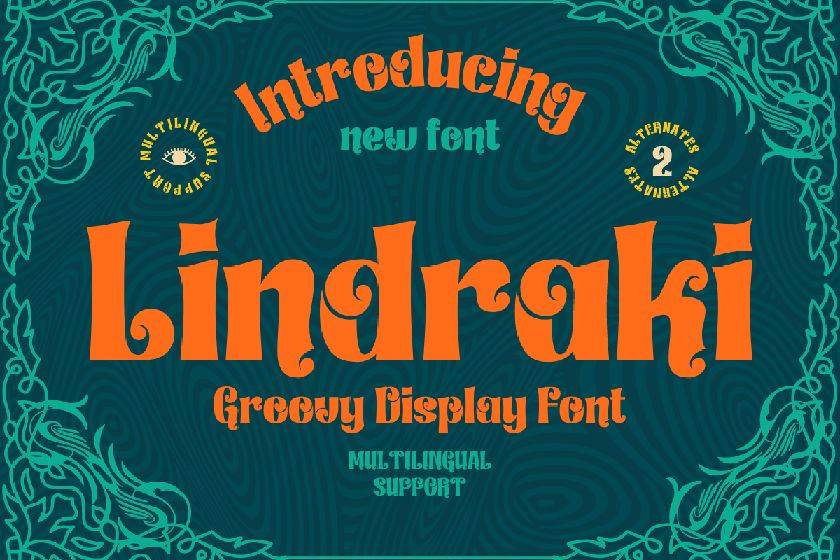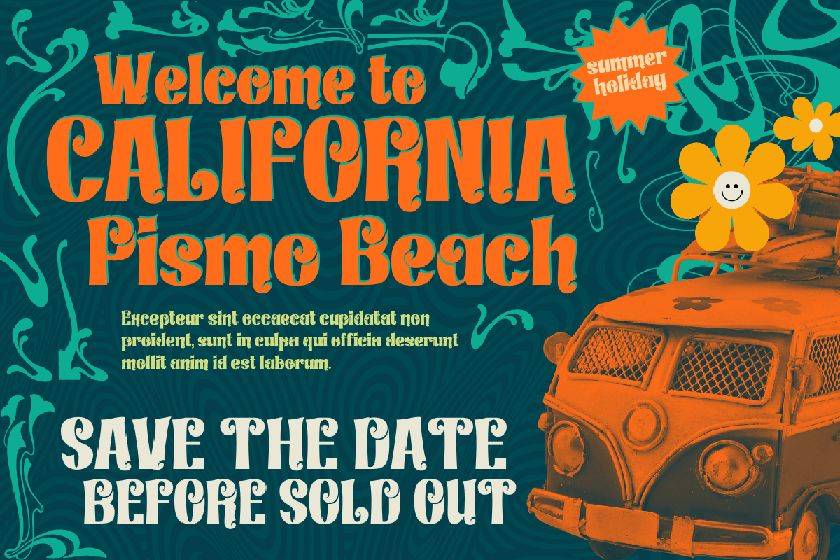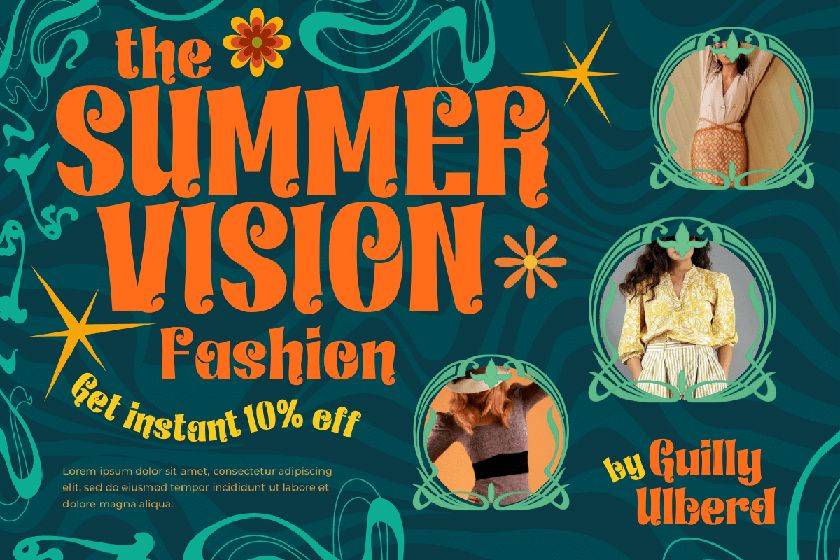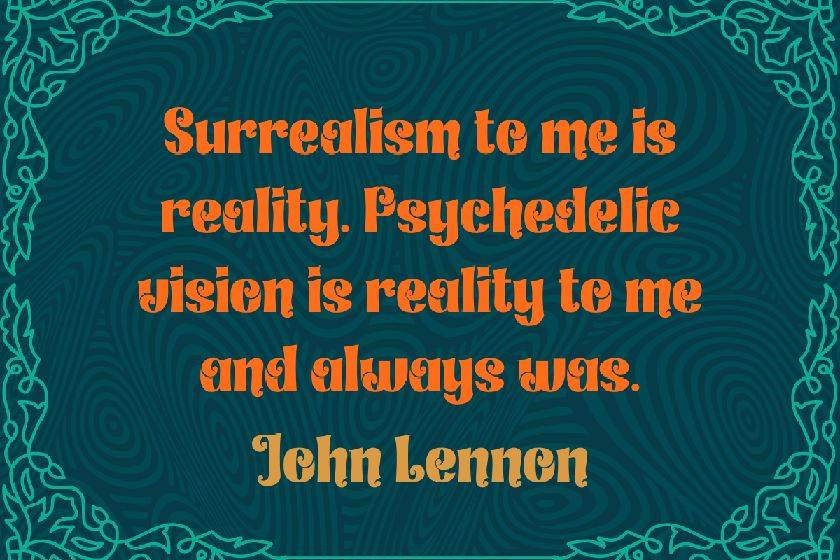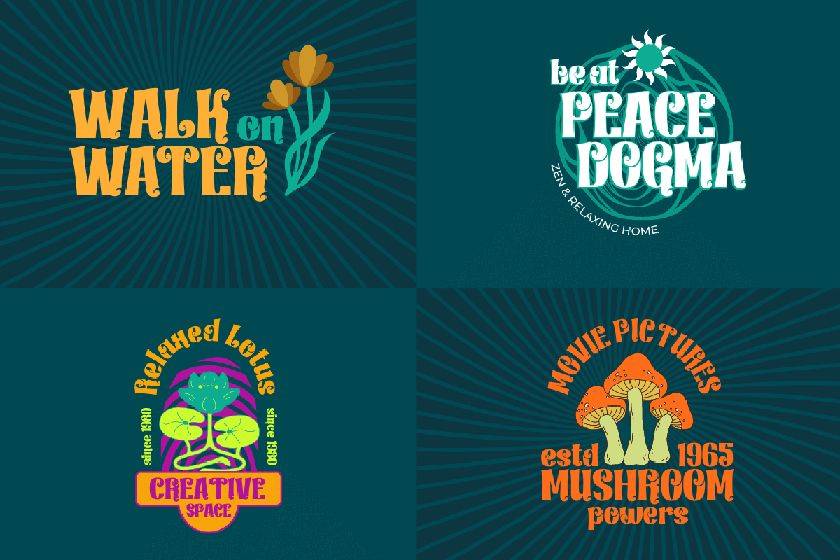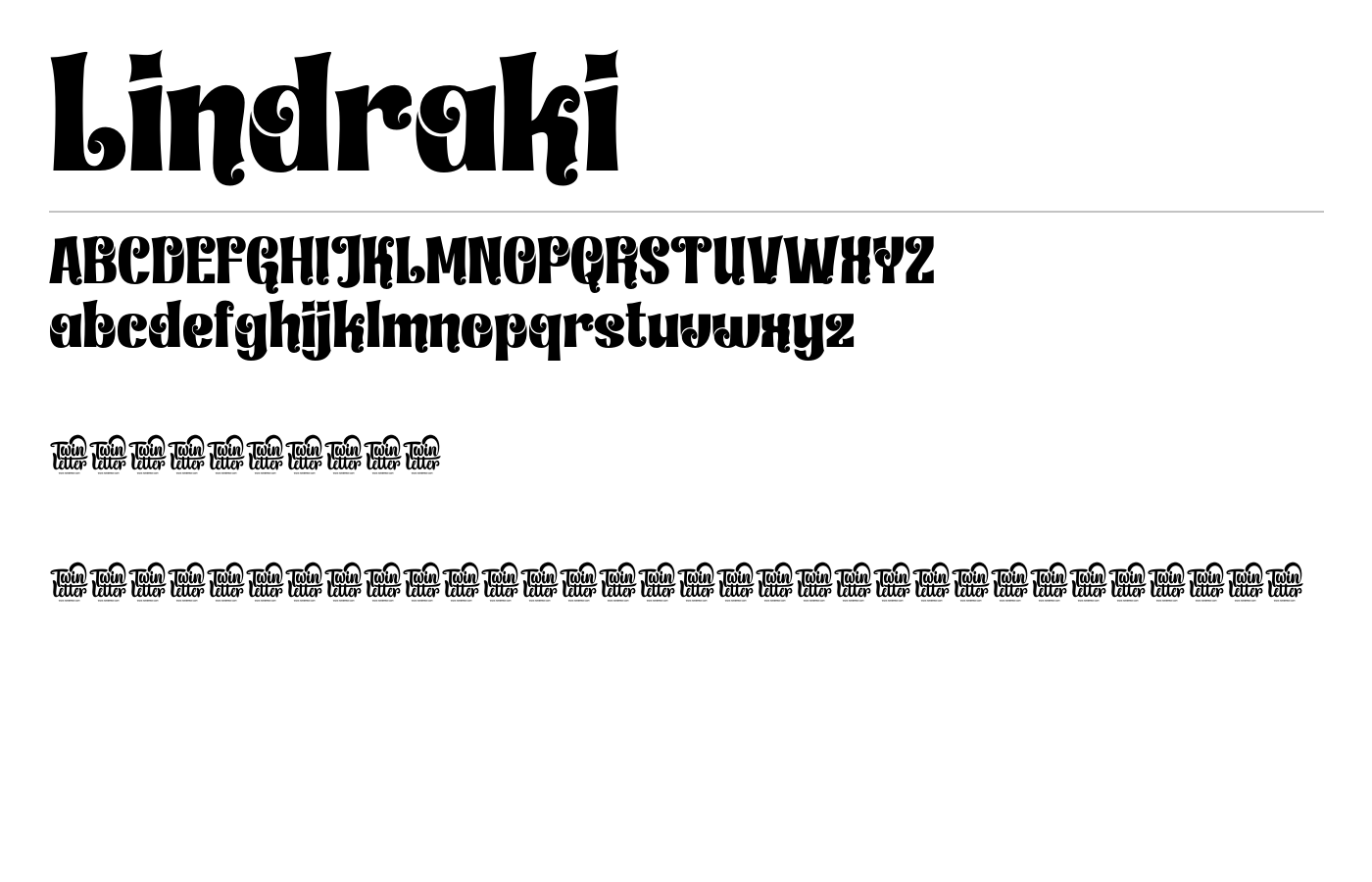
Lindraki is a bold, playful serif font with a strong personality, featuring thick strokes and quirky, curled terminals that give it a vintage, whimsical feel. Its high contrast and condensed letterforms make it ideal for eye-catching headlines, logos, and creative packaging, adding a fun yet retro vibe to any design. This font works best where distinctive, expressive typography is needed to stand out and convey a lively, artistic character.
Lindraki Font
About Lindraki Font